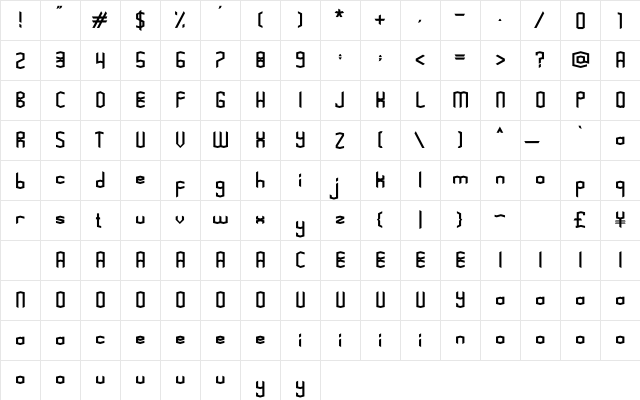
Kogapunk Regular
Design Context for Kogapunk Typeface
Kogapunk is a composed and adaptable typeface that performs quietly and consistently across a wide range of design contexts.